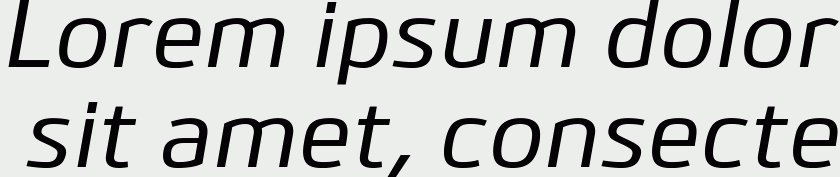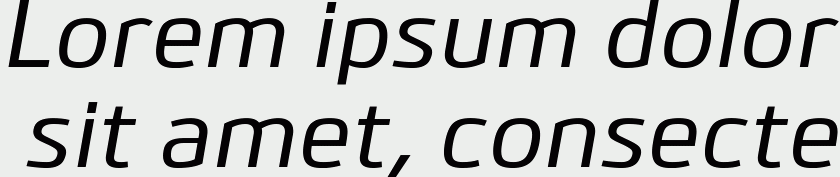
Bitner
/ Bitner Medium Italic
Bitner is a contemporary styled sans serif font that takes the name from the process of collecting bitcoins ‘bitcoin mining’. The simple, spur-less letterforms with no adornment are a direct influence from the crypto-currency technology and help to give the font a distinct, modern personality. These compact details combined with open apertures provide good readability across body copy. Bitner is a versatile sans serif with charm and geometric quality aimed at the convergence media markets. Details include over 800 characters with alternative lowercase a, e, g and y. 7 variations of numerals, true small caps with accents, manually edited kerning and Opentype features.